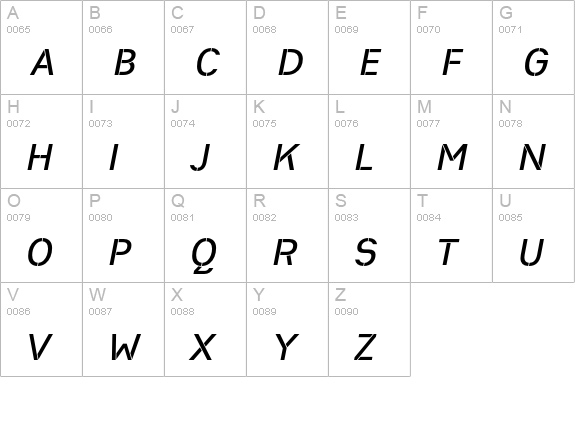
Heimat Stencil SemiBold Italic Font Details
Heimat Stencil SemiBold Italic is a sub-bold, structured, italic variant in the Heimat typeface family \xE2\x80\x94 well suited to sub-headlines and emphasised passages.
Heimat Stencil SemiBold Italic font is a versatile and modern typeface that strikes the perfect balance between elegance and boldness. With its clean lines and distinctive stencil design, this font exudes sophistication and style. Whether you're designing a logo, poster, or website, Heimat Stencil SemiBold Italic will make your text stand out and leave a lasting impression. The italicized version of this font adds a touch of flair and creativity, making it a great choice for projects that require a more dynamic and expressive look. Its semi-bold weight gives your text a strong presence on the page without being overpowering. Best of all, Heimat Stencil SemiBold Italic font is available for free download at FontsMarket.com. This means you can easily access this high-quality typeface without any cost, making it a valuable addition to your font library. Don't miss out on the opportunity to enhance your designs with this stunning font – download Heimat Stencil SemiBold Italic today!